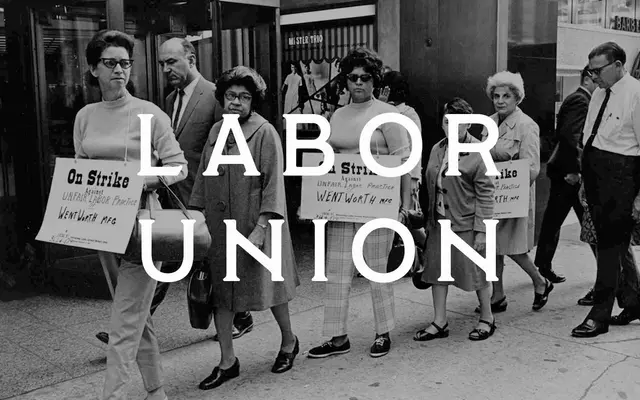
Labor Union Regular
A free single-weight sans-serif covering Latin and Cyrillic across 85 languages, released by McLetters.
A no-cost grotesque offering broad multilingual support across 85 languages, with both Latin and Cyrillic character sets included. Only a Regular weight is available, limiting its range for typographic hierarchy. Donations are accepted via Gumroad for those who wish to support the designer.
The specimen and name suggest a sturdy, utilitarian sans-serif in the grotesque tradition, though limited page detail makes precise subclassification difficult.